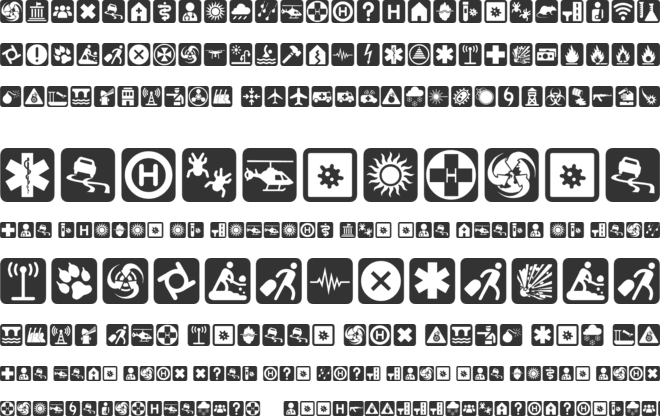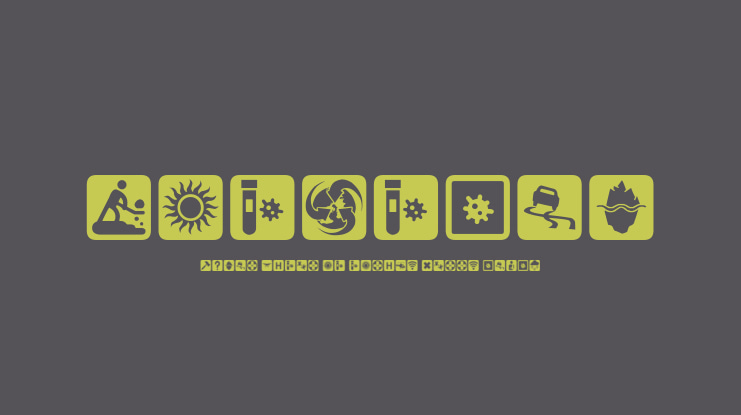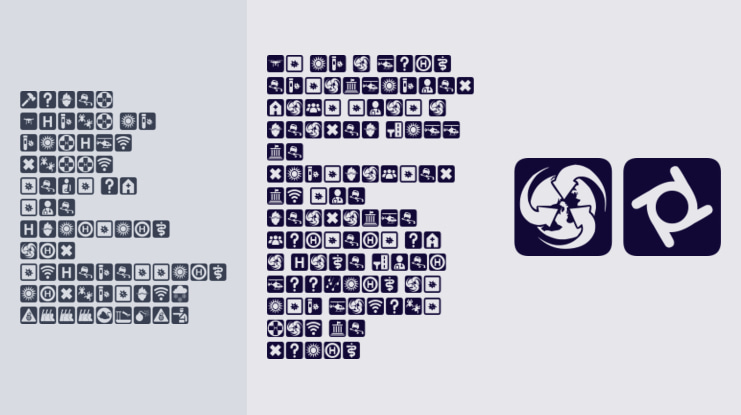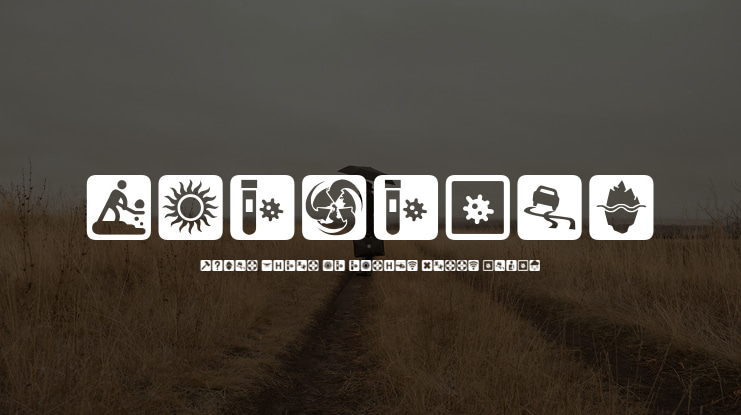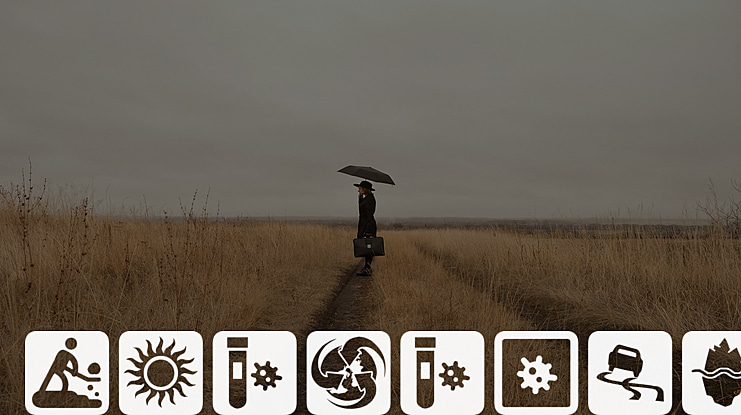
Disaster Font
200 disaster and emergency response icons with many derived from the the United Nations Office for the Coordination of Humanitarian Affairs https://www.unocha.org/story/iconography-part-un%E2%80%99s-humanitarian-efforts-ocha-releases-new-humanitarian-icons